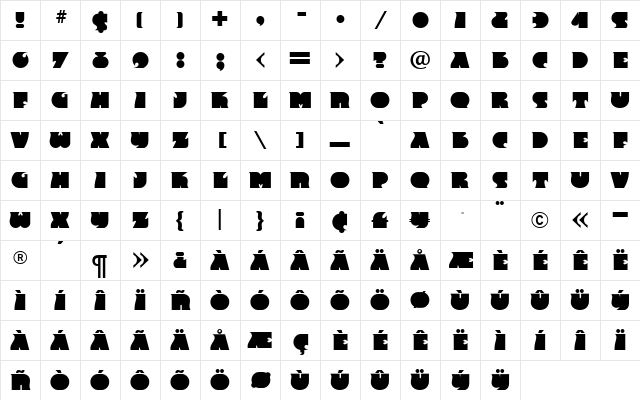
Complete Frenchy RR Regular glyph index. Displaying only characters natively supported by Frenchy RR Regular font.
Frenchy RR is a composed and adaptable typeface that performs quietly and consistently across a wide range of design contexts.